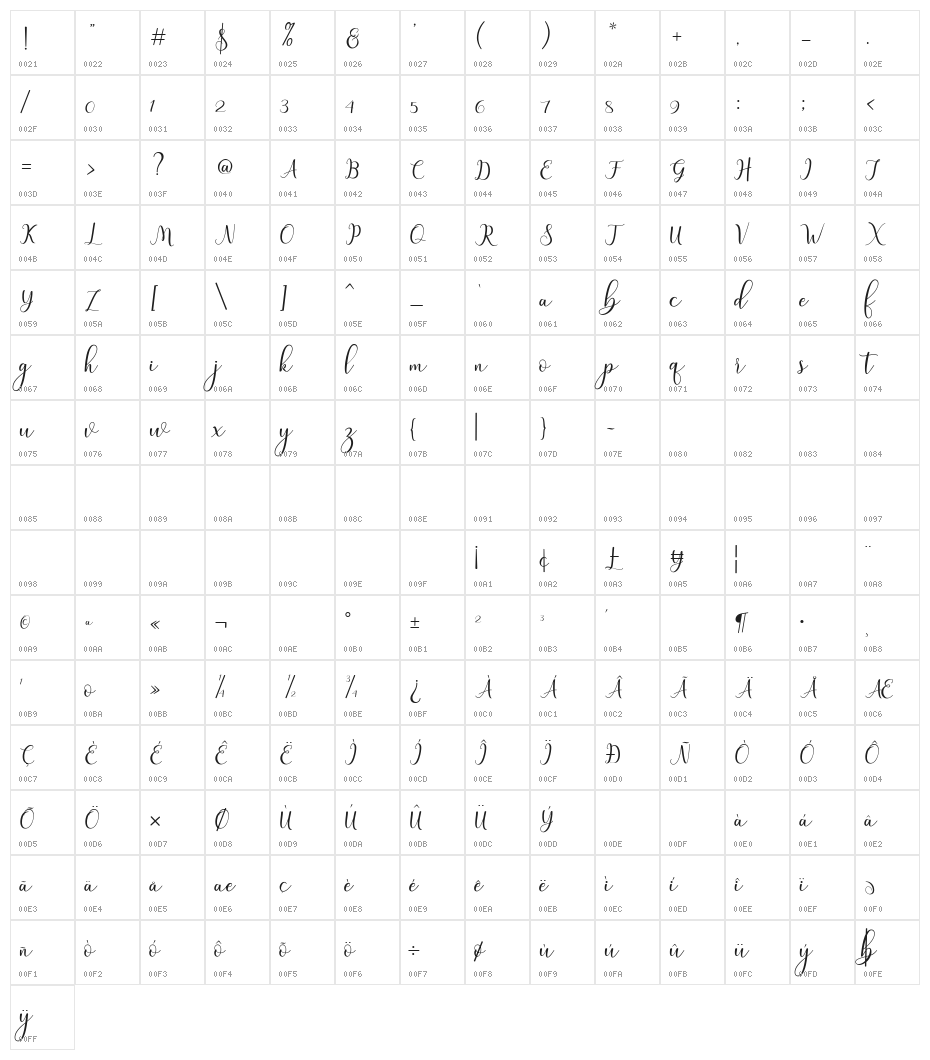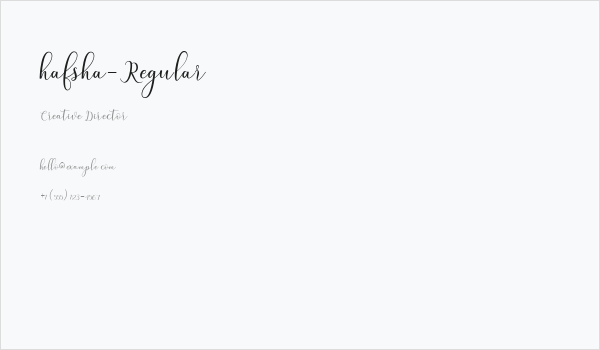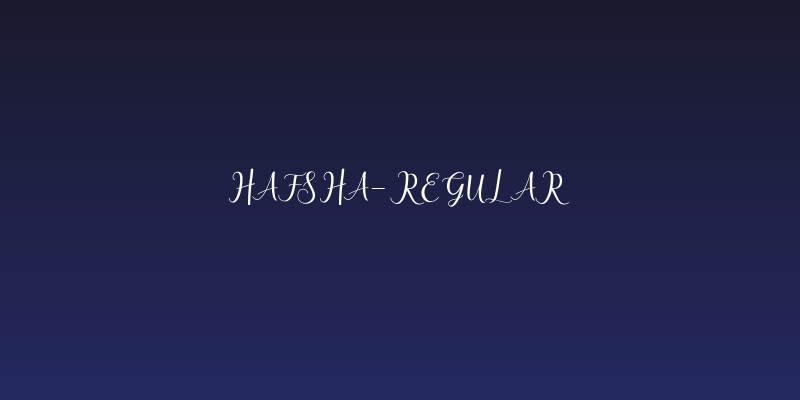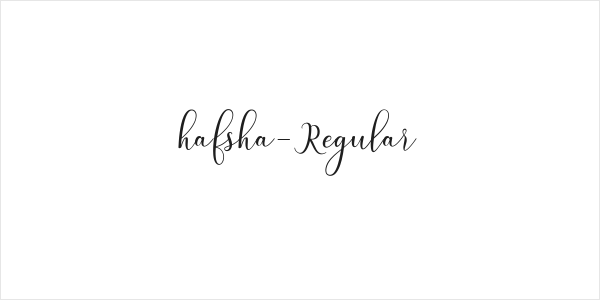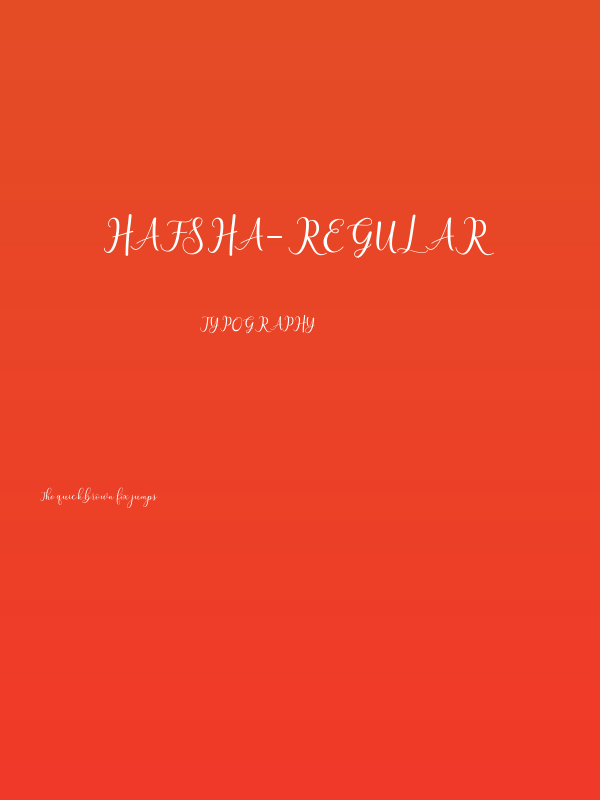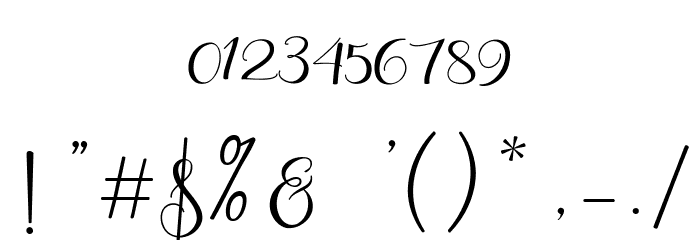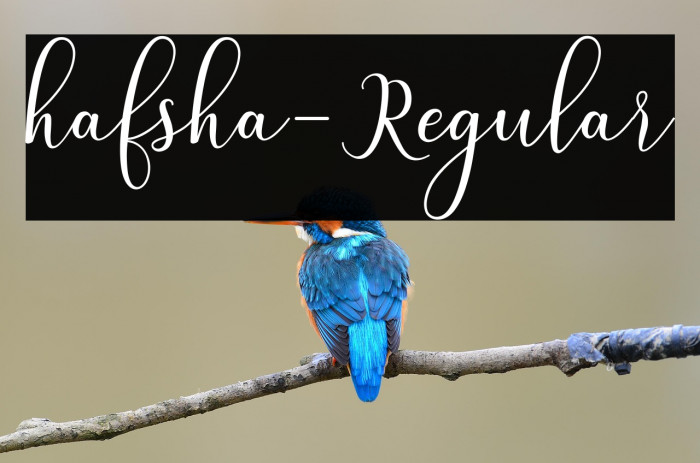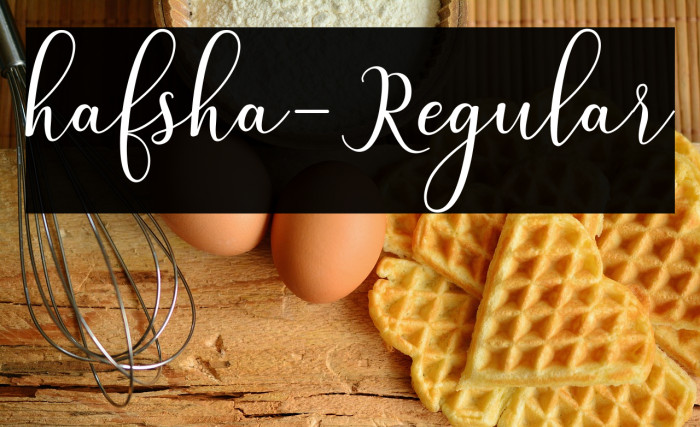
hafsha-Regular Font
✎ Script
| Estilo general | Elegant, Decorative |
| Caso de uso | Logos, Invitations, Decorative text |
| Proyectos propuestos | Ideal for wedding invitations, elegant branding, greeting cards, and upscale packaging. |